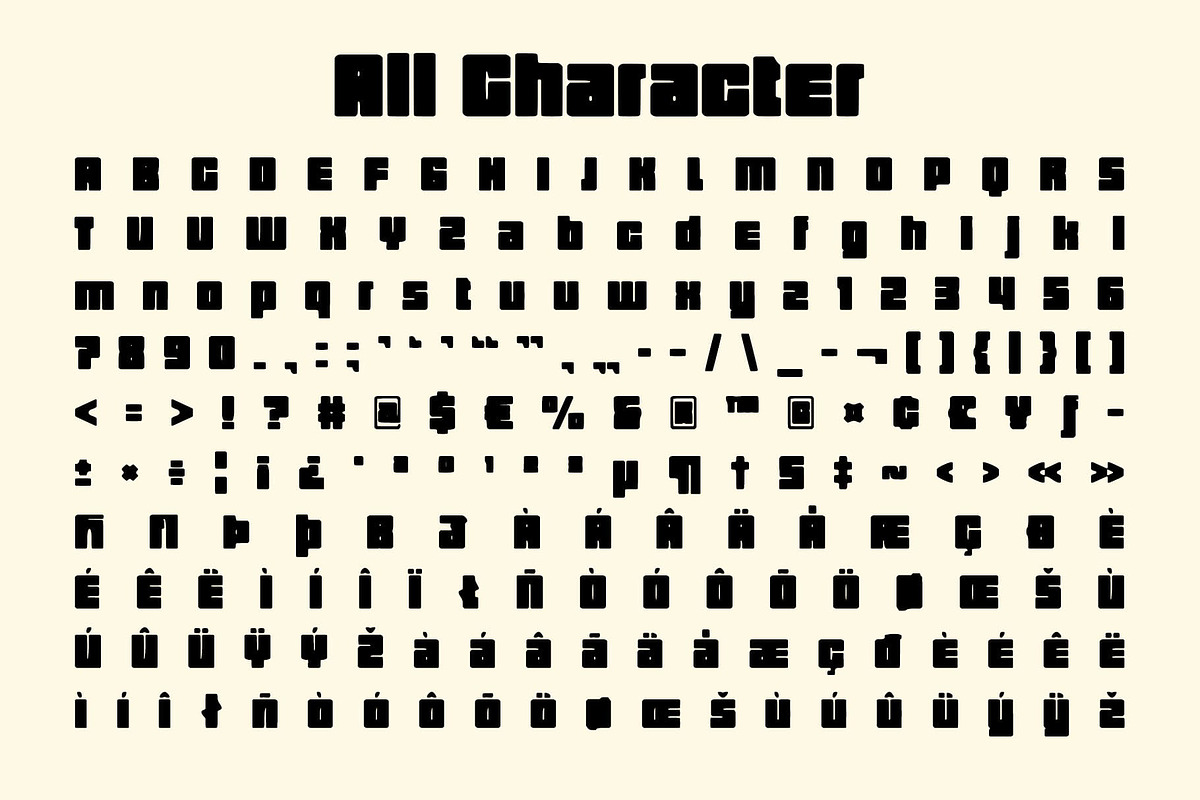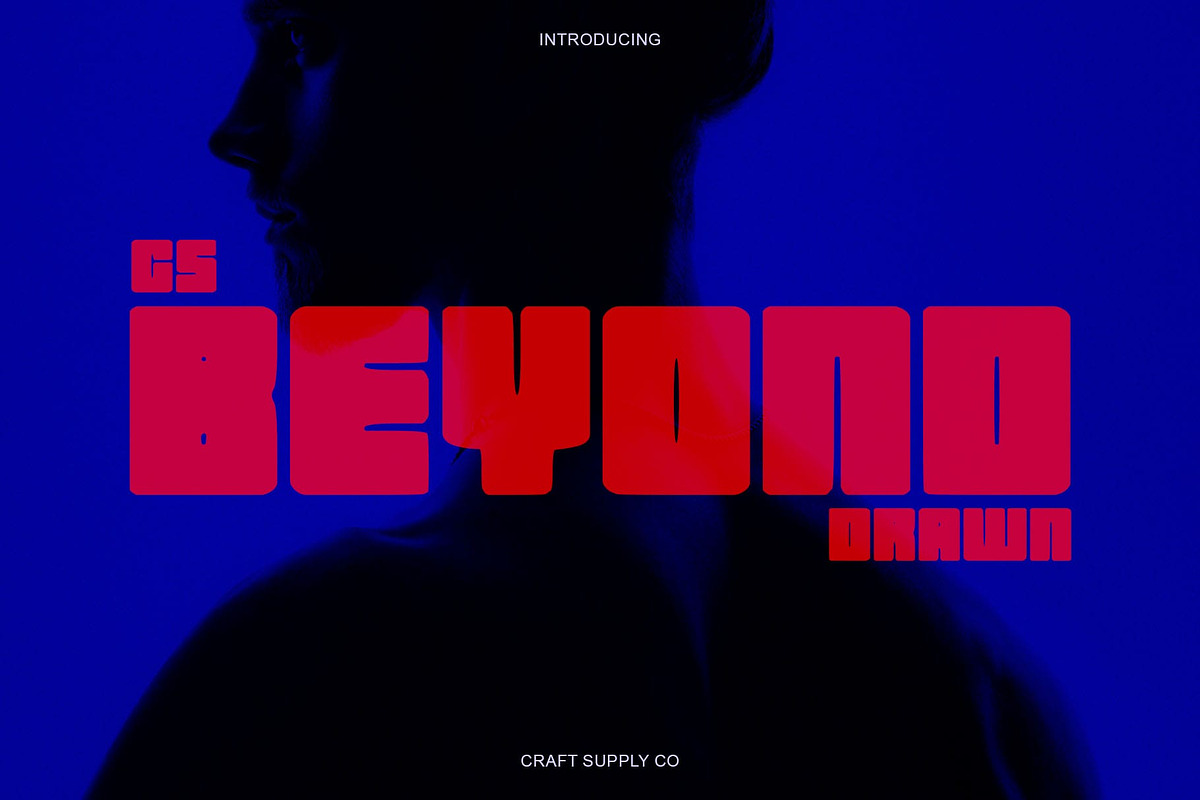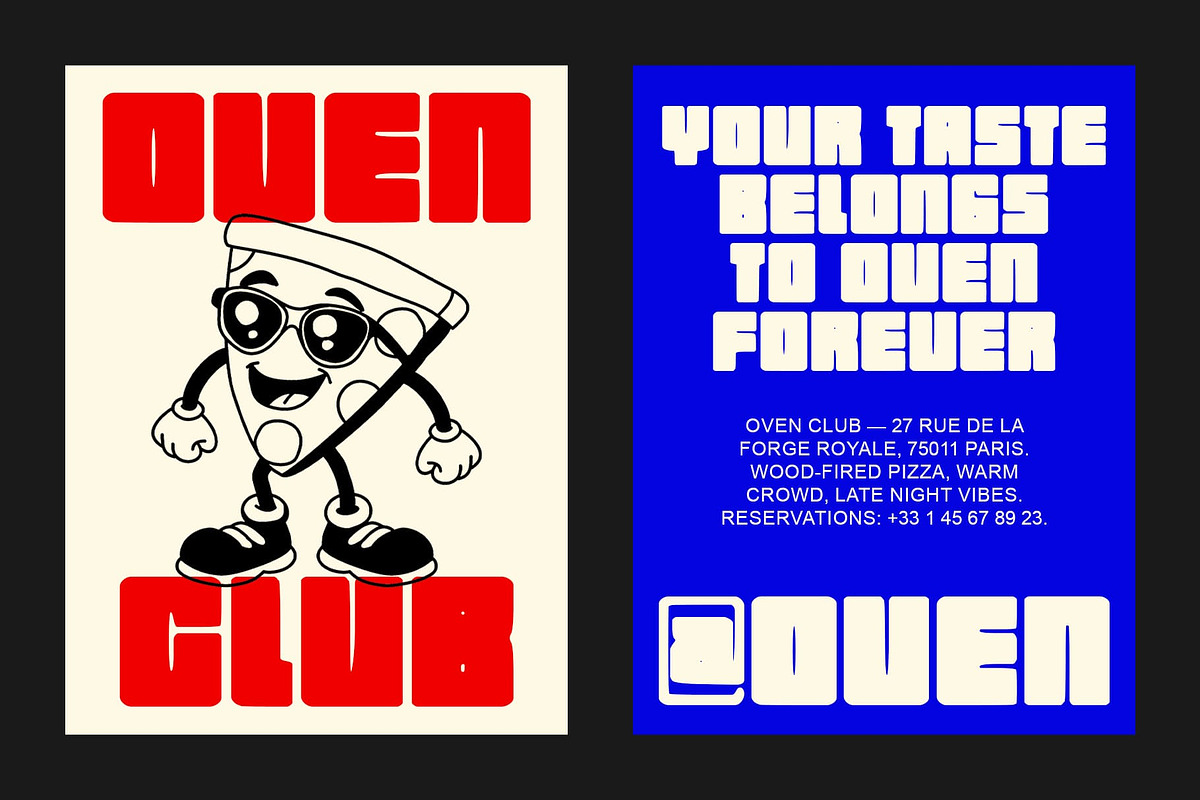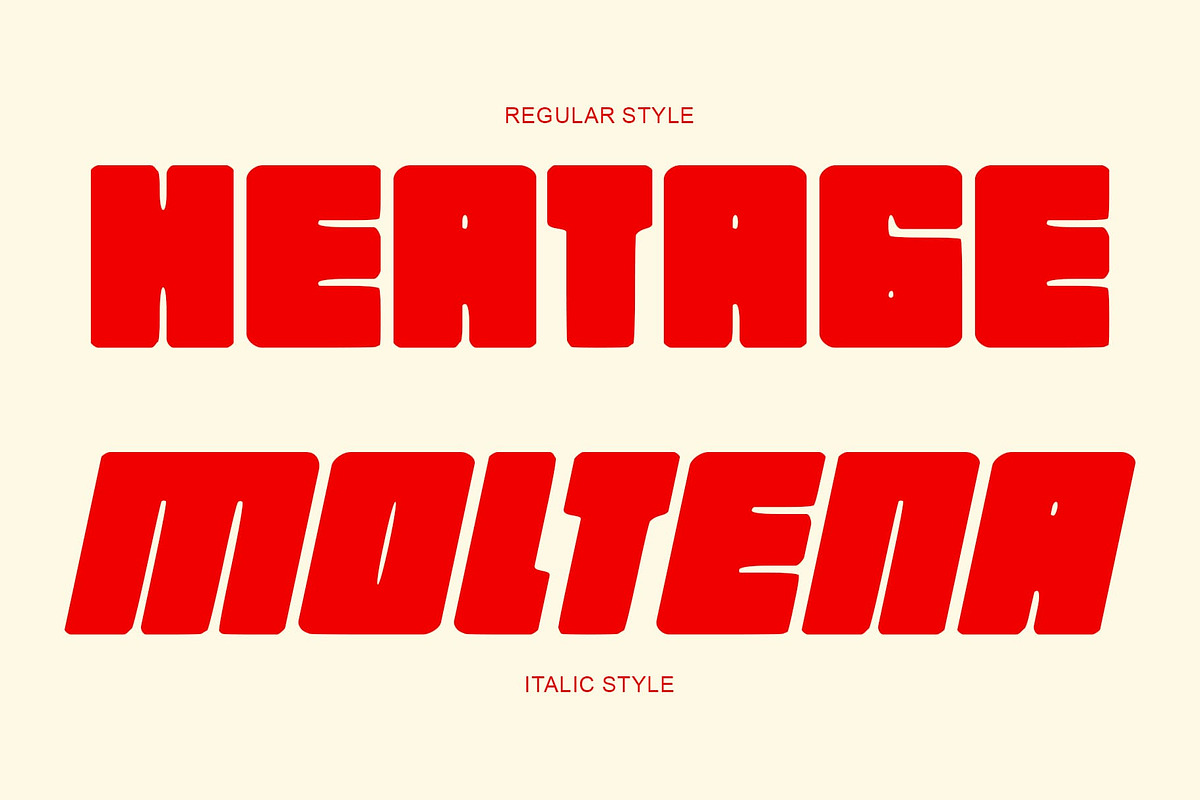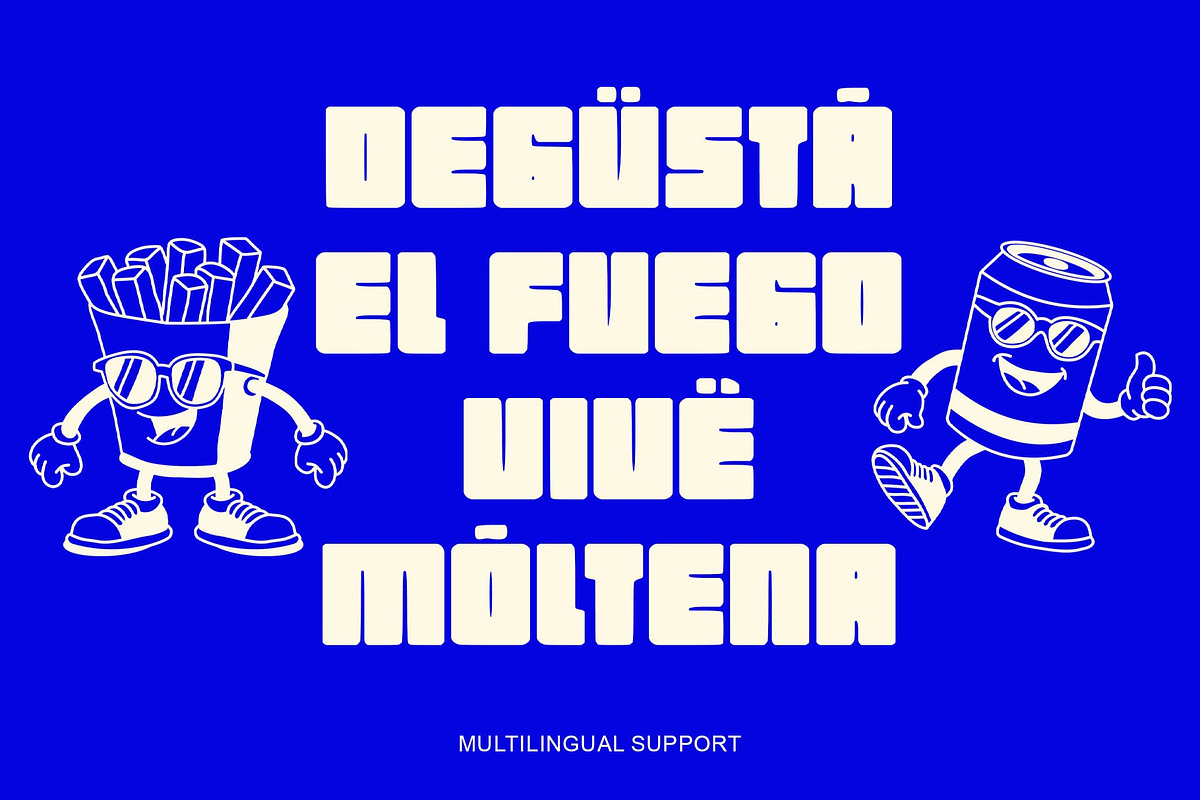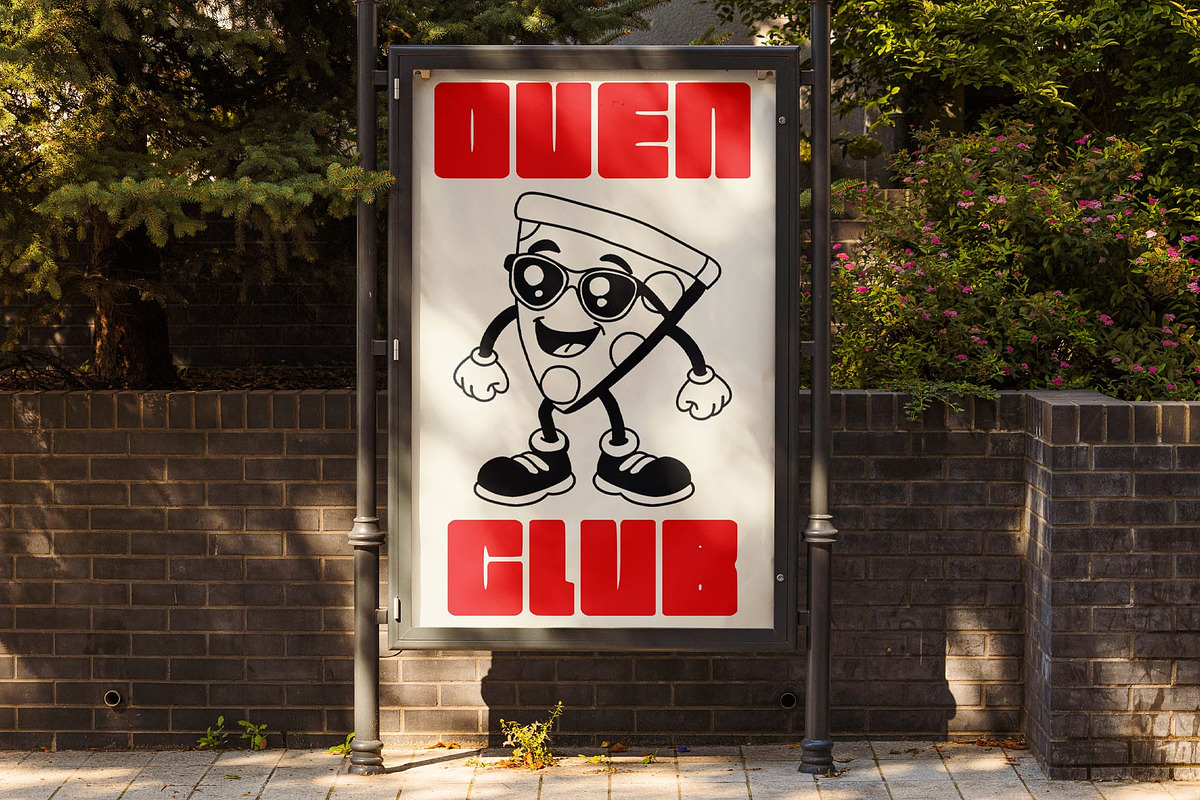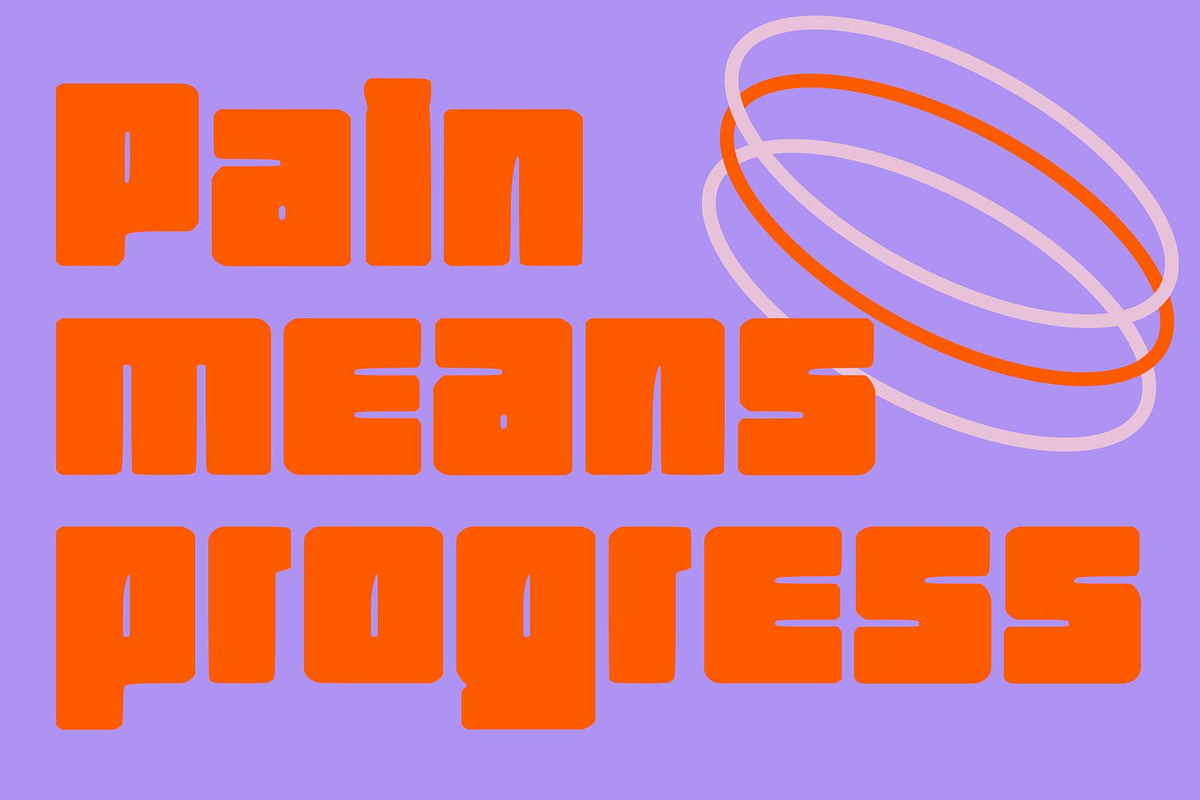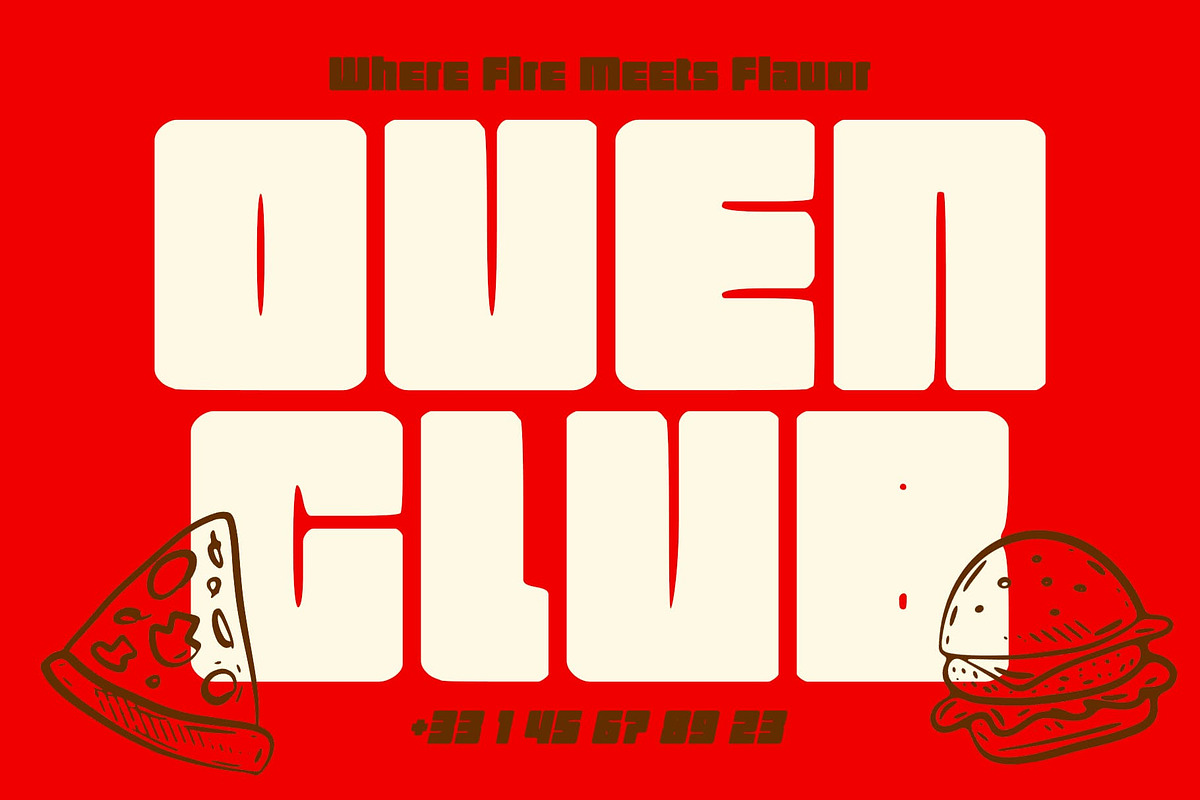
CS Beyond Drawn
CS Beyond Drawn – Bold Display Font with Drawn Texture: Strength Meets Handcrafted Character
Powerful Form with Boxy Style This is a bold display font designed to make an impact. Its solid, box-shaped structure gives each letter a commanding presence, while its thick strokes emphasize strength and confidence. This modern yet grounded form ensures that every word captures attention effortlessly.
Hand-Drawn Texture for Unique Depth The drawn effect introduces an artistic, handmade quality that breaks the rigidity of its bold form. This texture adds depth, warmth, and individuality, giving this font a more human touch without losing its strong visual identity.
Modern Boldness with Expressive Personality By merging geometric precision with organic imperfection, this font creates a balance between structure and creativity. It feels both industrial and expressive ideal for designs that aim to convey authority while retaining a distinctive handcrafted vibe.
Perfect for Posters, Headlines, and Strong Branding This font excels in posters, headlines, and bold branding applications where clarity and impact are key. Its powerful form and textured finish make it perfect for brands that want to project confidence, creativity, and a truly memorable presence.